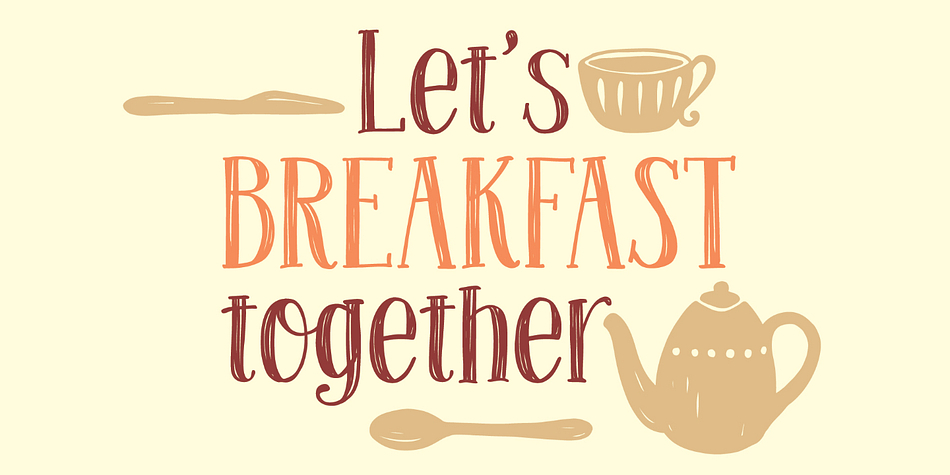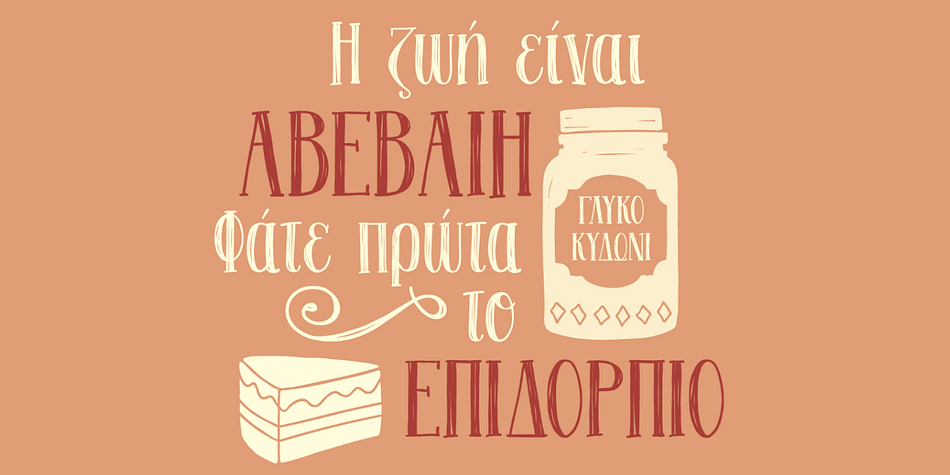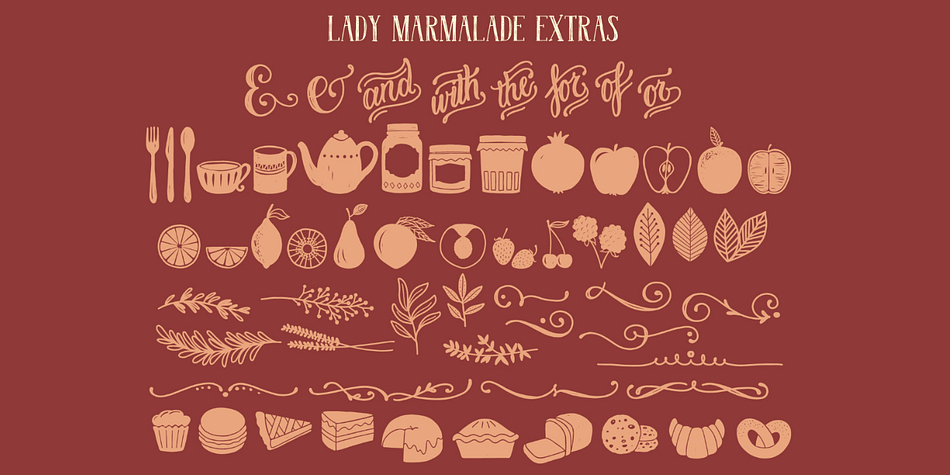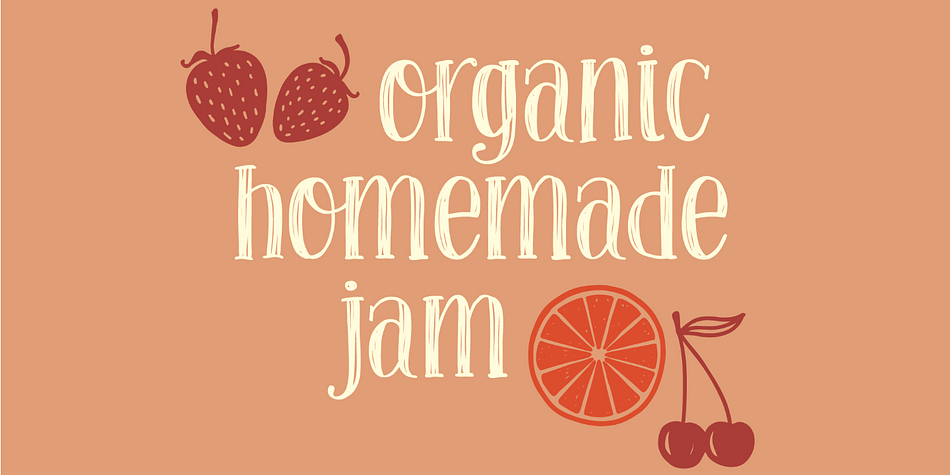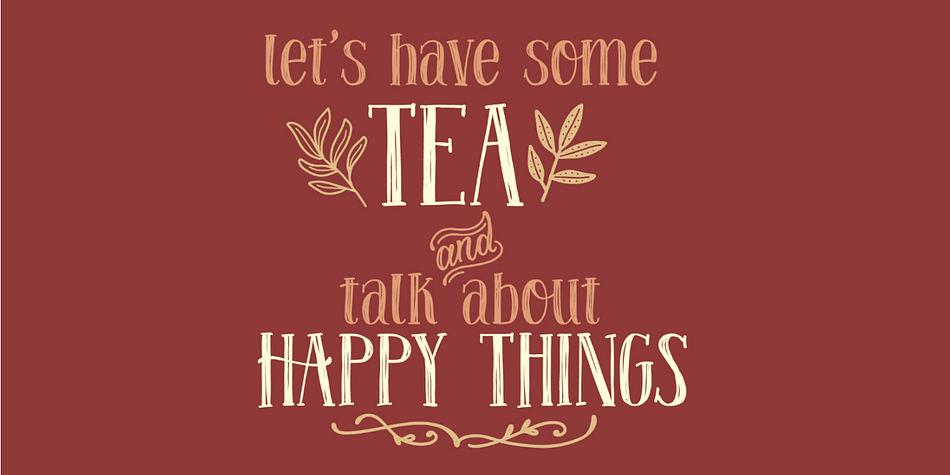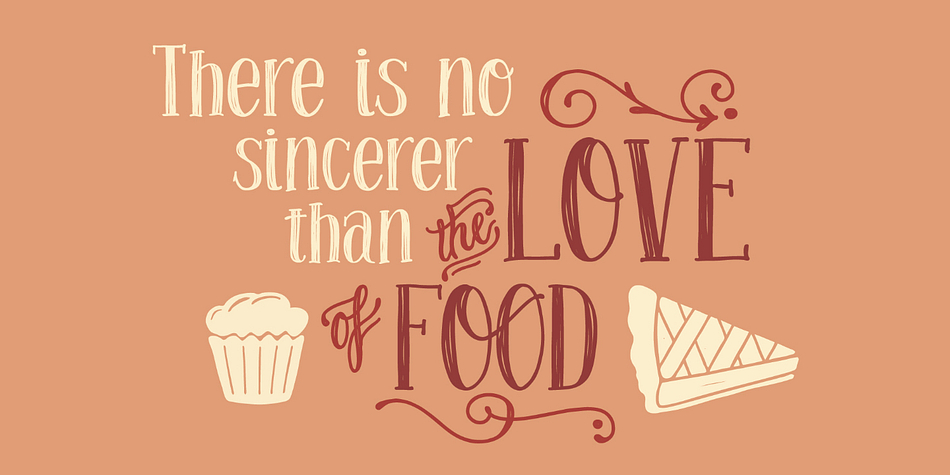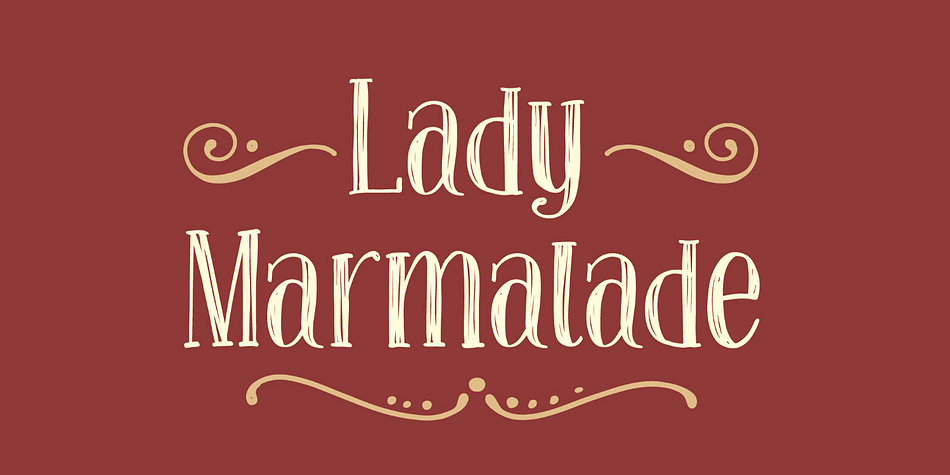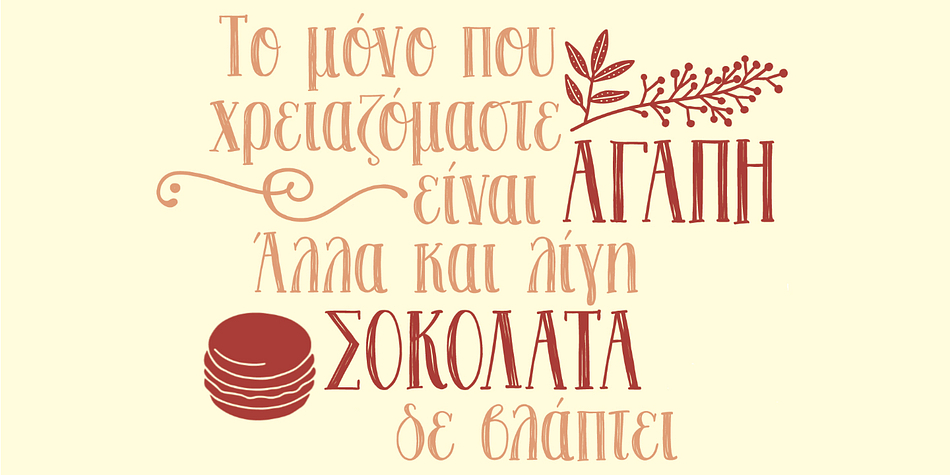
Designed by Anastasia Dimitriadi, Lady Marmalade is a hand drawn and dingbat font family. This typeface has two styles and was published by DimitriAna.
Lady Marmalade is a hand drawn script font, with a sketched look, that makes it perfect for lettering prints. It is suitable for stationery design, signage, logos, labels, posters, merchandise products, etc.
The font contains standard and discretionary ligatures, and supports Central, Eastern, Western European, Baltic, Greek and Turkish languages.
Lady Marmalade is offered along with an Extra font that contains 62 decorative elements with ornaments, drawings, catchwords and ampersands. All you have to do is type any uppercase or lowercase letter or number, to find the element you like.